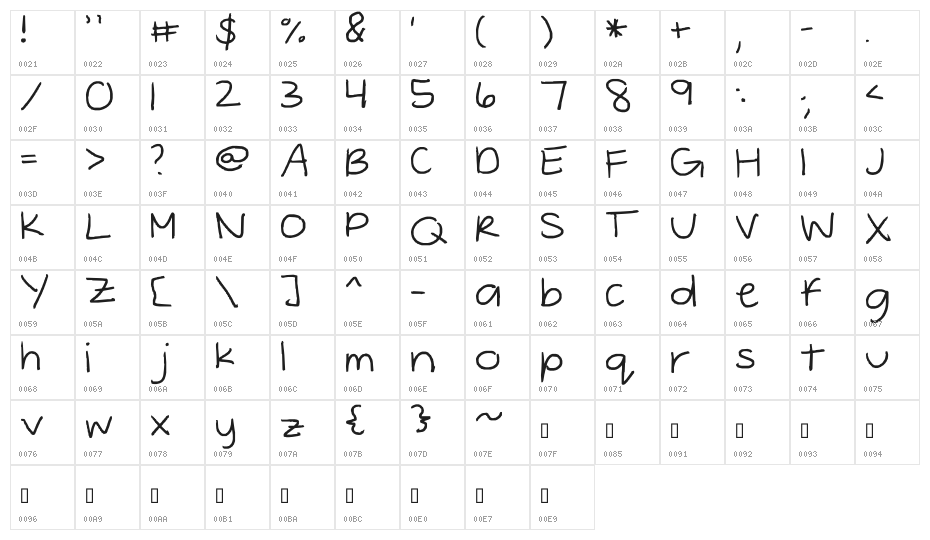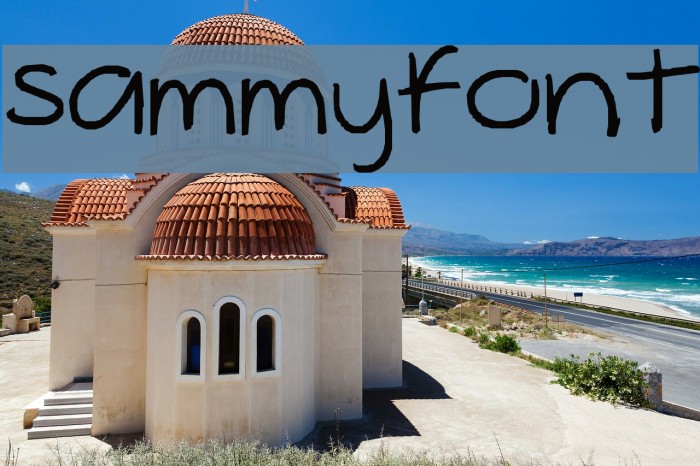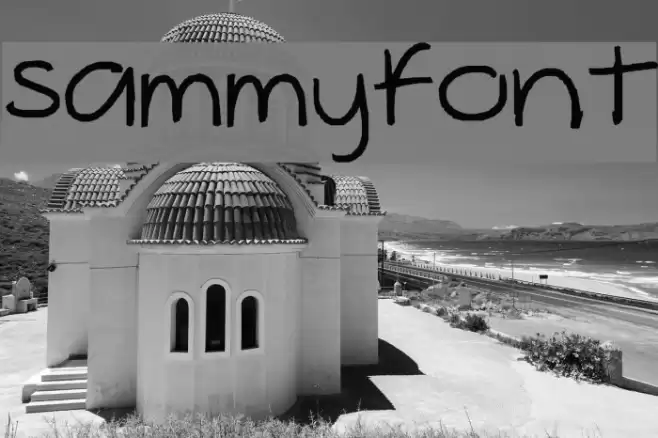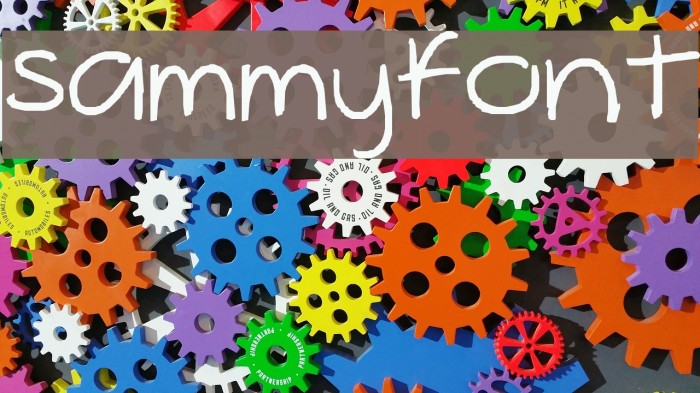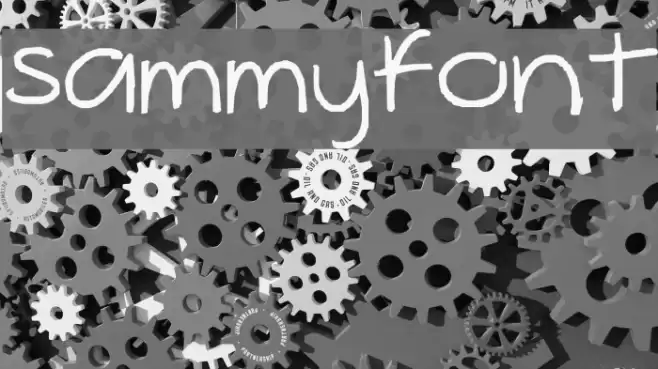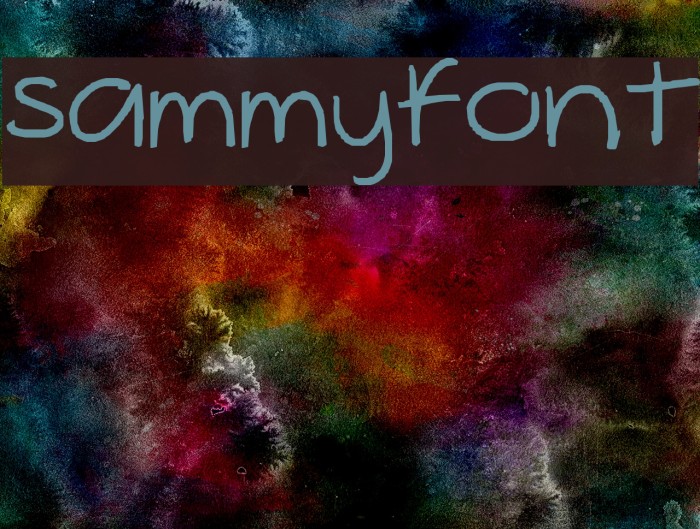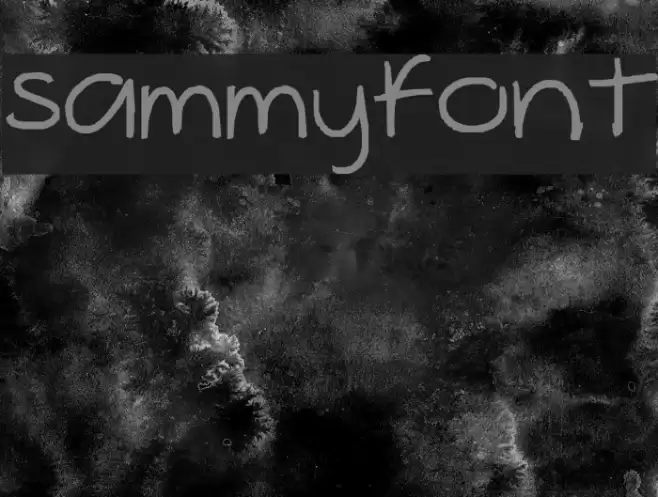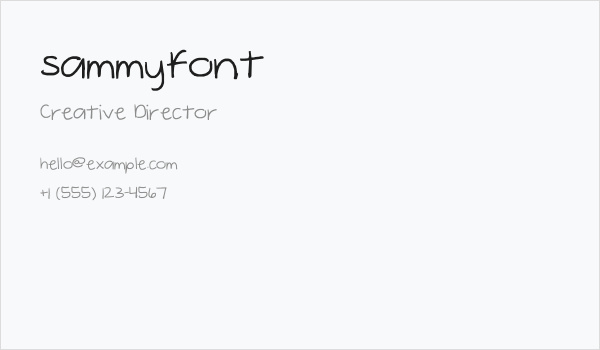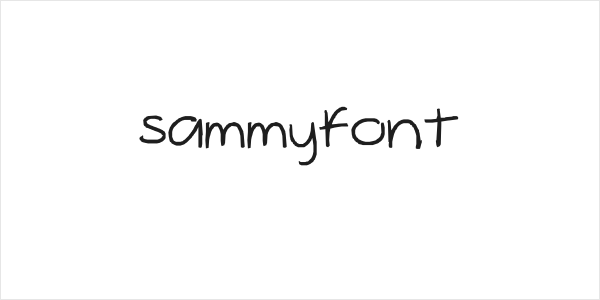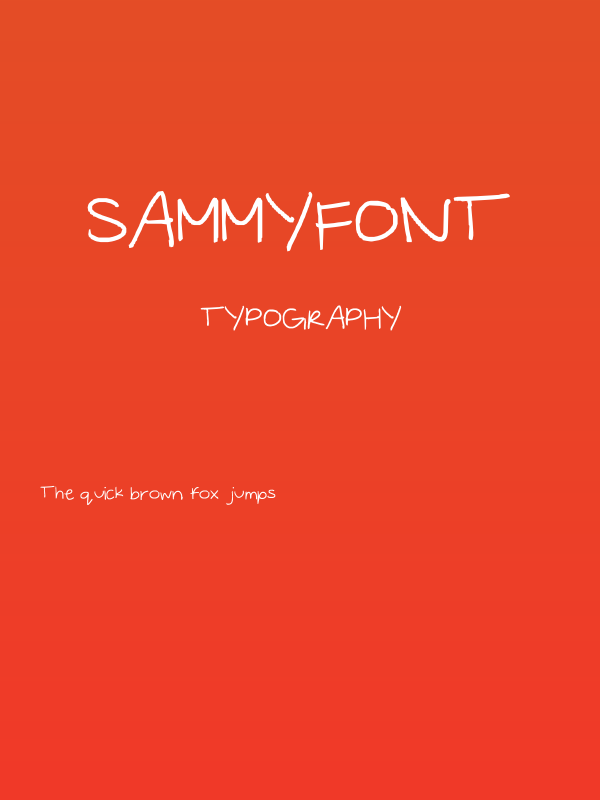
sammyfont Font
sammyfont Description
This font features a playful and casual handwritten style, characterized by its irregular and slightly uneven strokes that give it a personal touch. The letters are rounded and slightly tilted, adding to the informal and friendly appearance. The uppercase and lowercase letters maintain a consistent style, with a slight variation in size and shape that enhances the handwritten feel. The numerals and special characters are designed to match the overall aesthetic, ensuring a cohesive look across all text. This font is ideal for projects that require a personal, approachable, and informal tone.
| Use Case | Headlines, Informal text, Personal projects |
| Proposed Projects | Great for greeting cards, personal blogs, children's books, and informal branding. |